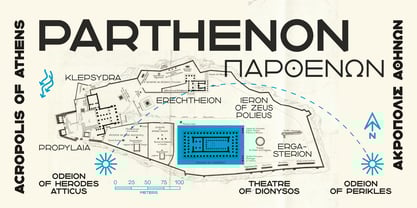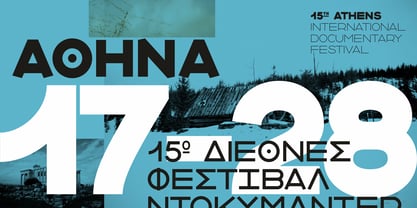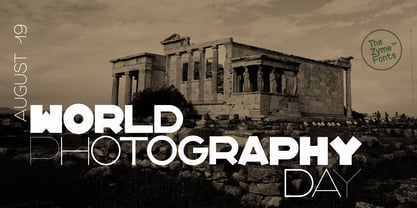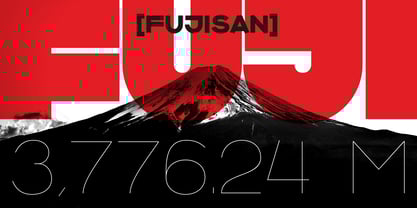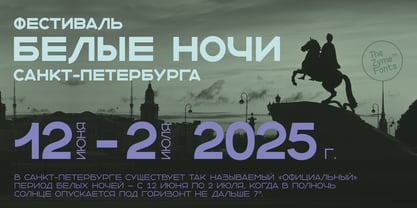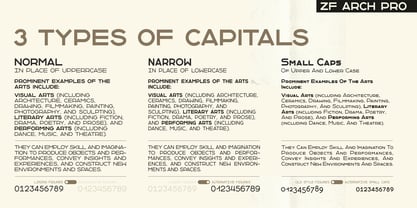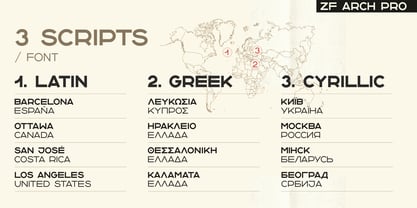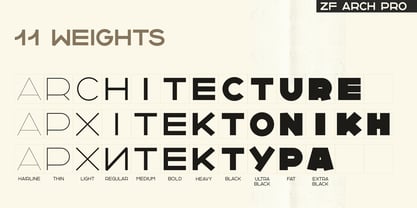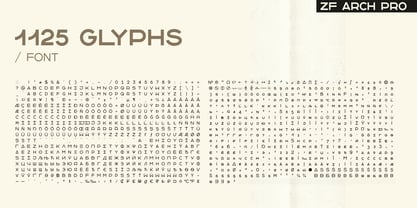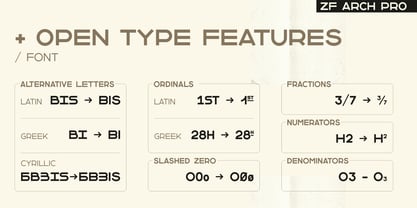
ZF Arch Pro
by The Zyme
The ZF Arch Pro Font Family was designed by Babis Touglis and published by The Zyme. ZF Arch Pro contains 11 styles and family package options.
Arch is for Architecture! This font family is inspired by the Greek Architects of the past decades who themselves wrote on their drawings -by hand- usually using a rapidograph!
Most Greek architects wrote the titles of their projects in this style and this was what determined the style of this particular font as a consequence of the medium they used (rapidograph) and other tools such as the ruler to hold the alignments.
For this reason the font has been designed with an uppercase version (all caps). The font is suitable for display use, such as titles, posters, covers, logos and especially for applications related to cultural events.